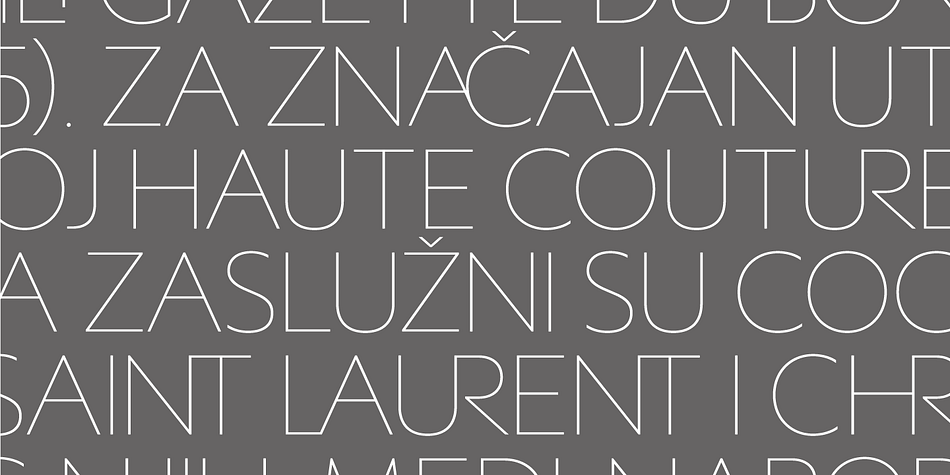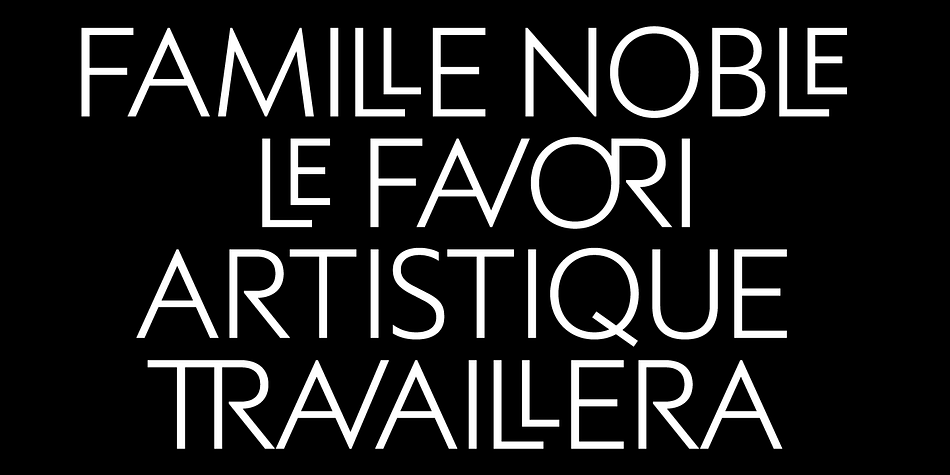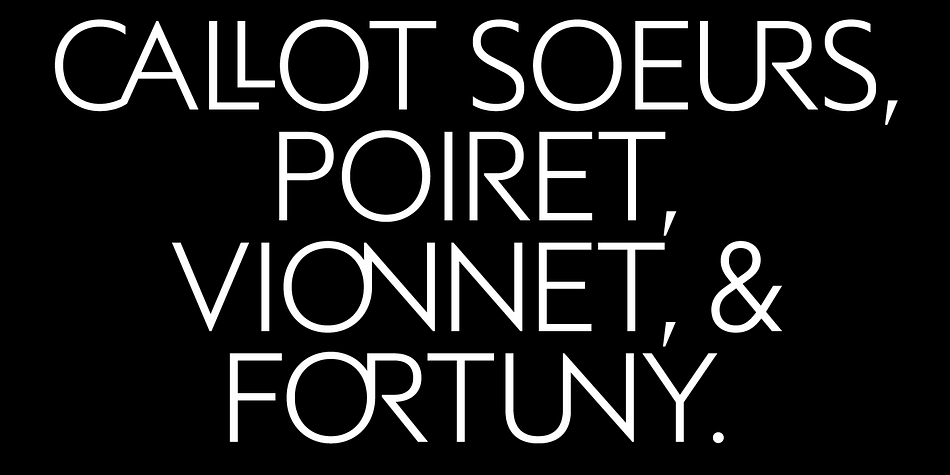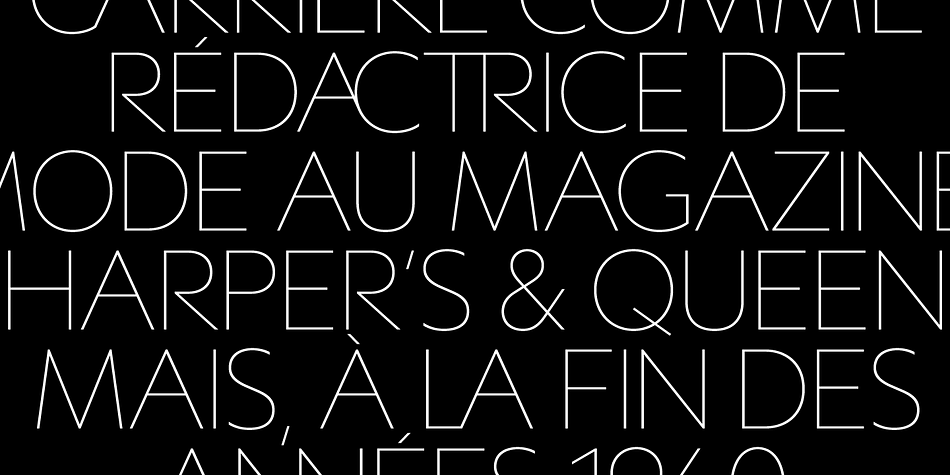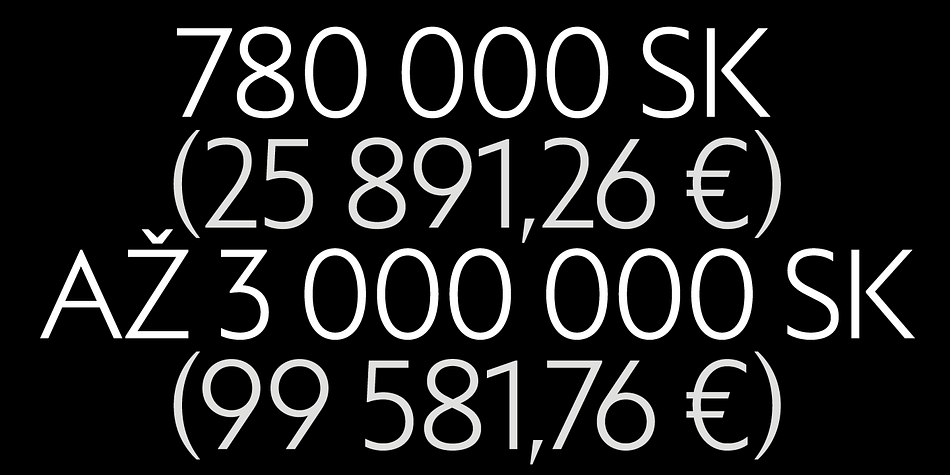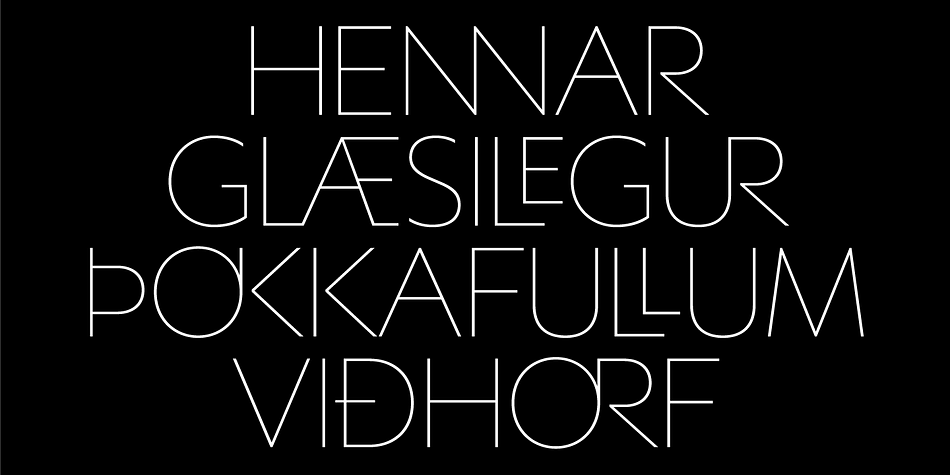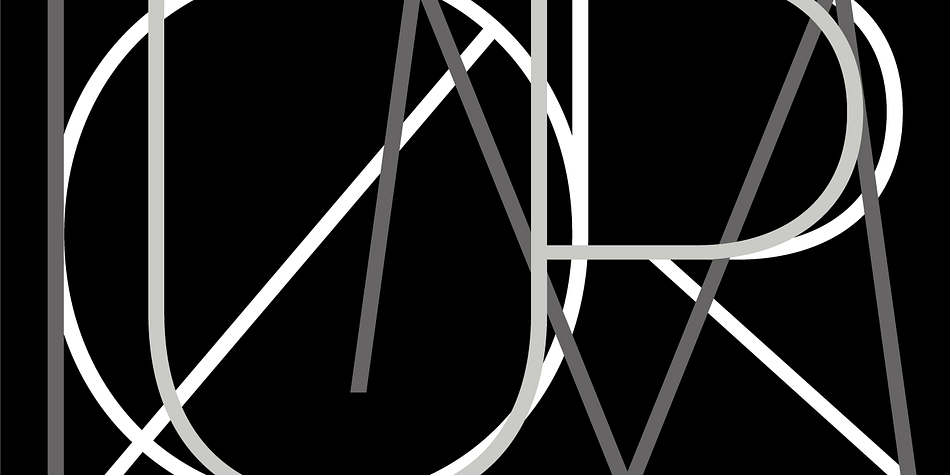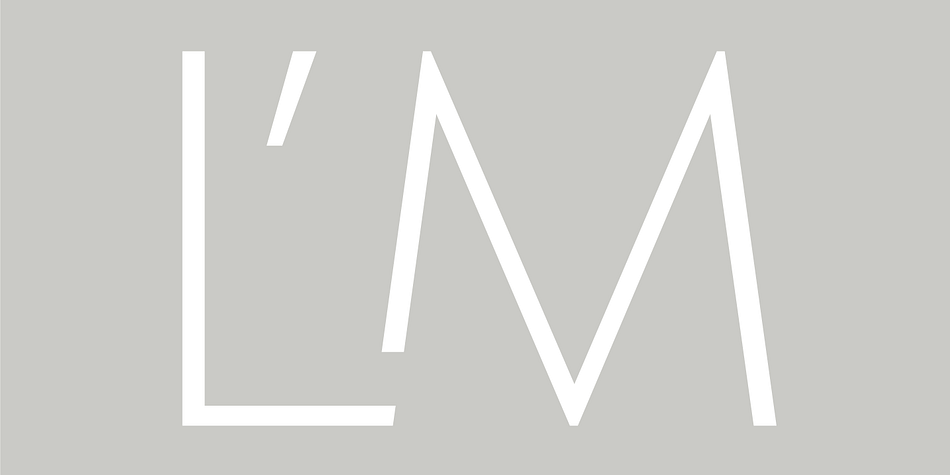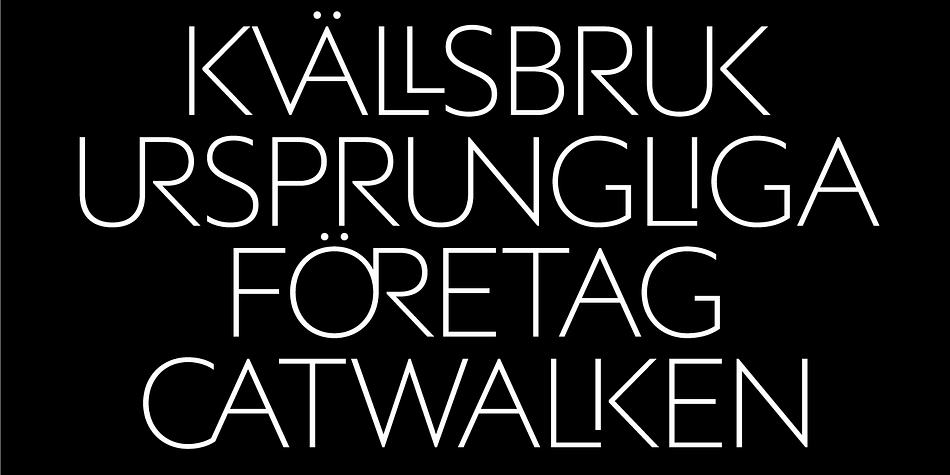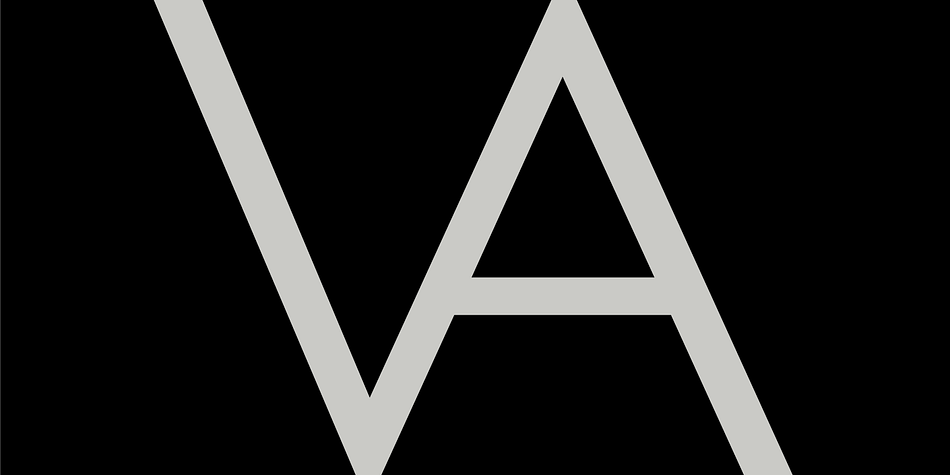
Averes Title is a display sans font family. This typeface has three styles and was published by AE Type Inc.
Averes Title is a sharp geometric sans titling typeface available in three weights. It features an array of stylistic discretionary ligatures with corresponding accented variants supporting numerous languages.
Features include: Discretionary ligature feature, Romanian accent language feature, Dutch IJ language feature, Polish kreska language feature, slashed zero and ordinals.